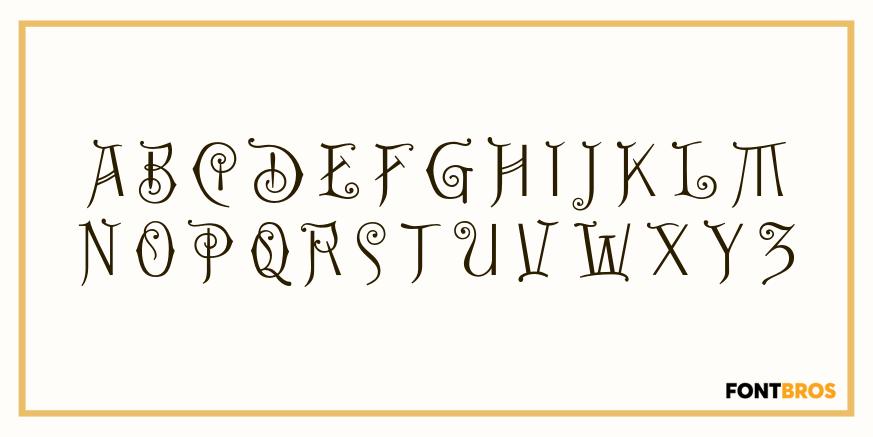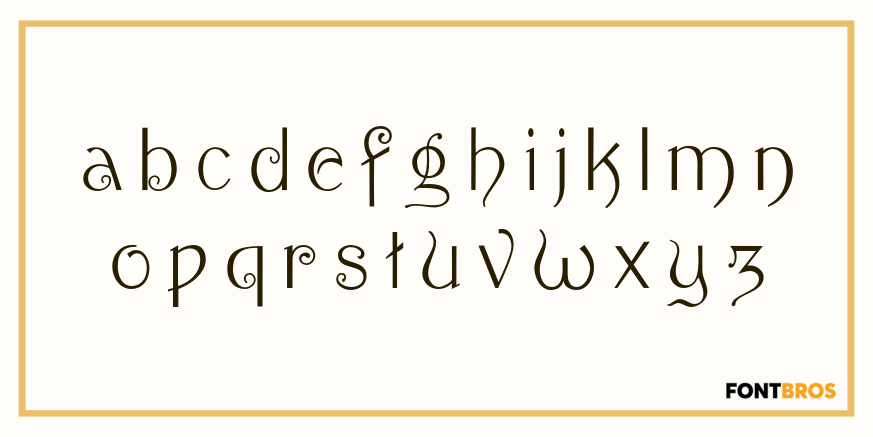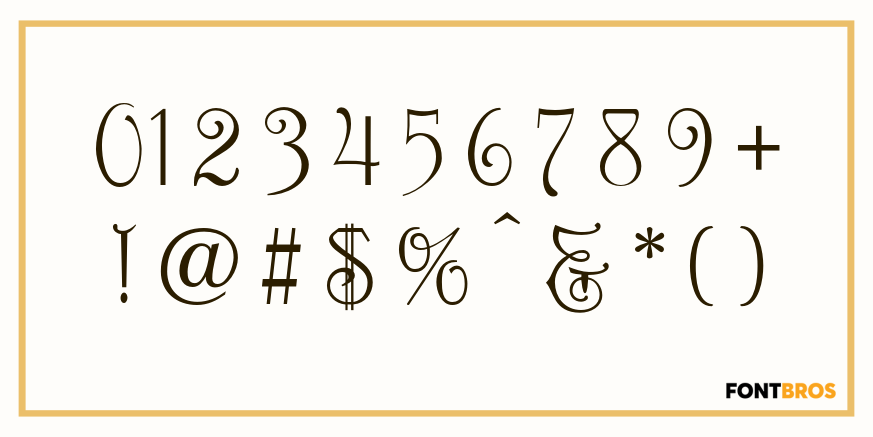
Banquet
In our early days of type hunting, we considered this to be the prize of our collection. Fonts of this late Victorian period seem to have less ruffles and flourishes than the earlier ones, which makes them easier to read.
Banquet by Solotype